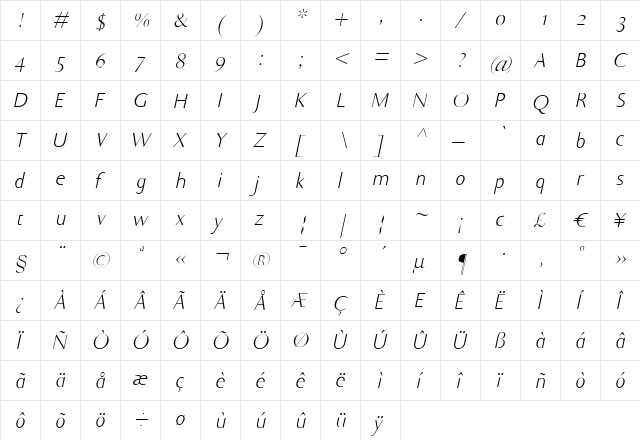
Ela Sans XLight Italic
Design Context for Ela Sans XLight Typeface
Ela Sans XLight takes a measured approach to typography — its balanced proportions and neutral character make it a reliable workhorse for both digital and print work. The slanted form adds forward momentum and visual energy. Its slender proportions lend an understated elegance to any composition.